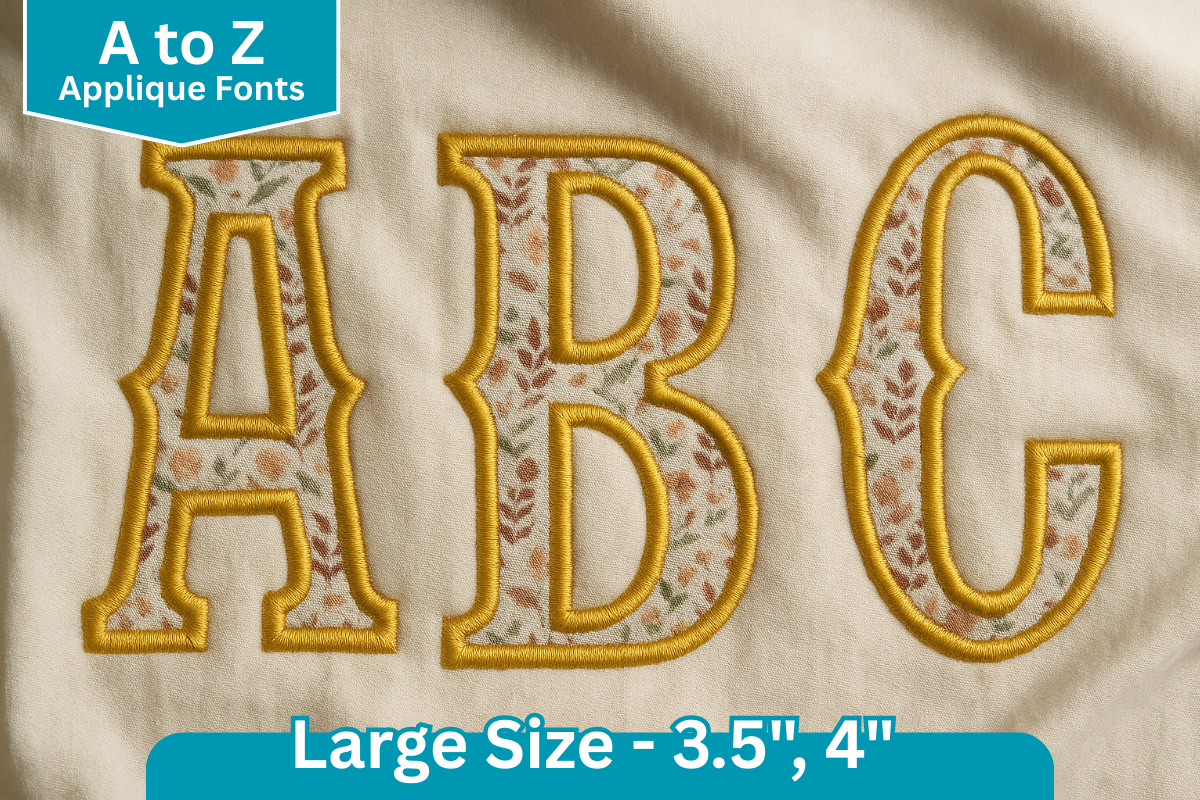
Vintage Serif Applique Embroidery Font
This applique alphabet embroidery font includes all A–Z capital letters. Each letter is carefully digitized for clean stitching and comes in 2 sizes. Perfect for monograms, names, sportswear, kids’ projects, bags, and home décor items. Add a bold handmade touch to your embroidery projects with this versatile applique font set. The sizes and stitches information shown below is for “A” in each size. This is provided as a summary of what is available in this download file. For the full dimension details of all letters in this set, click on the More Sewing Info (PDF) button on this page.